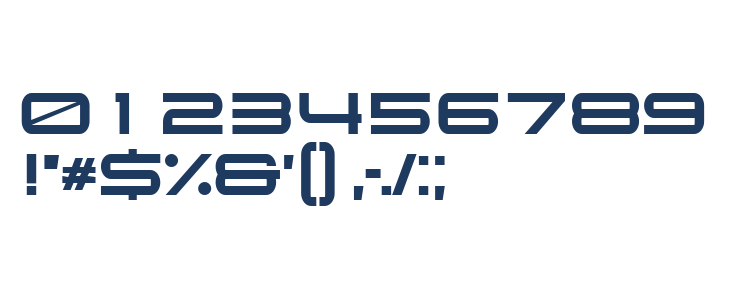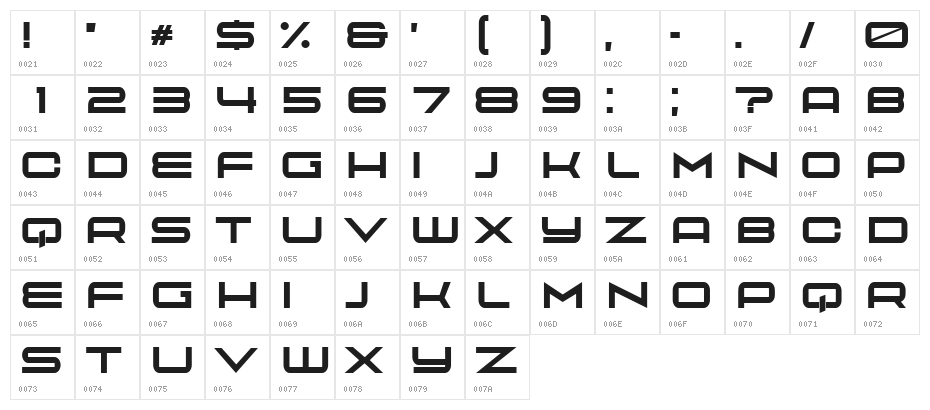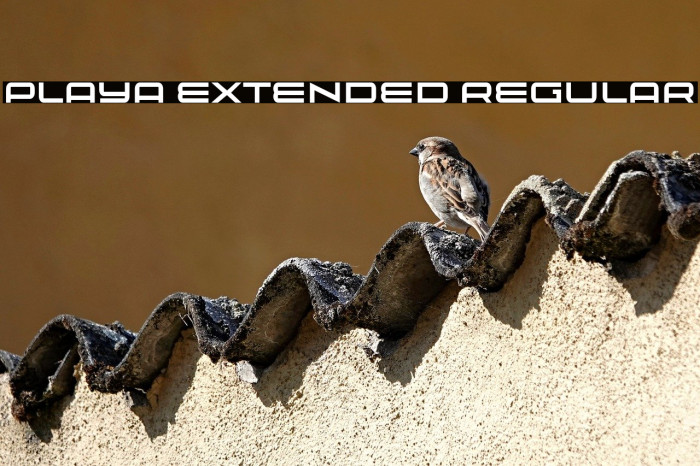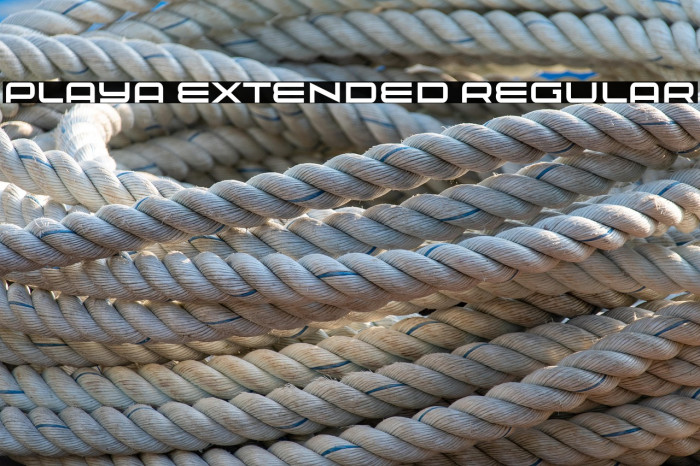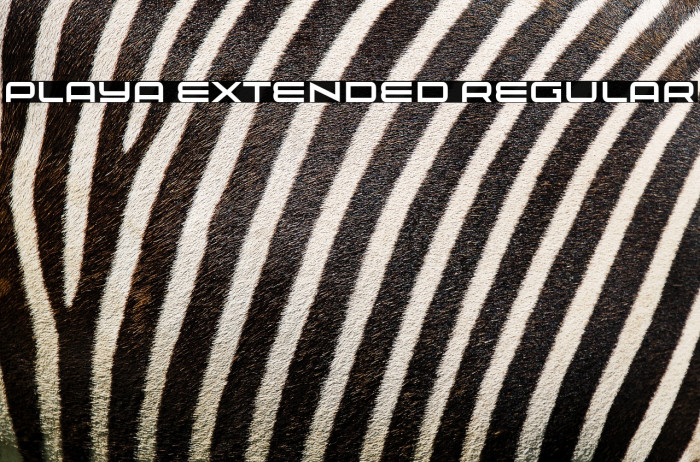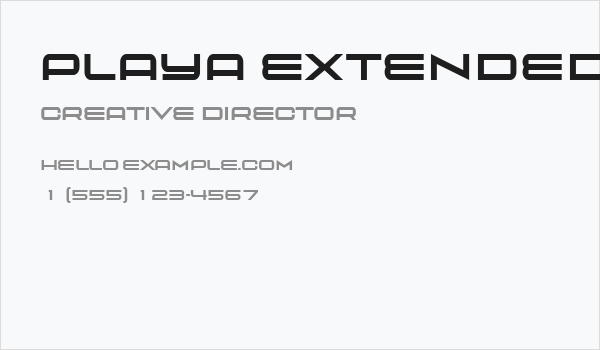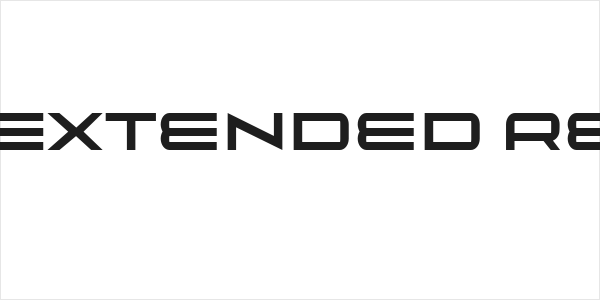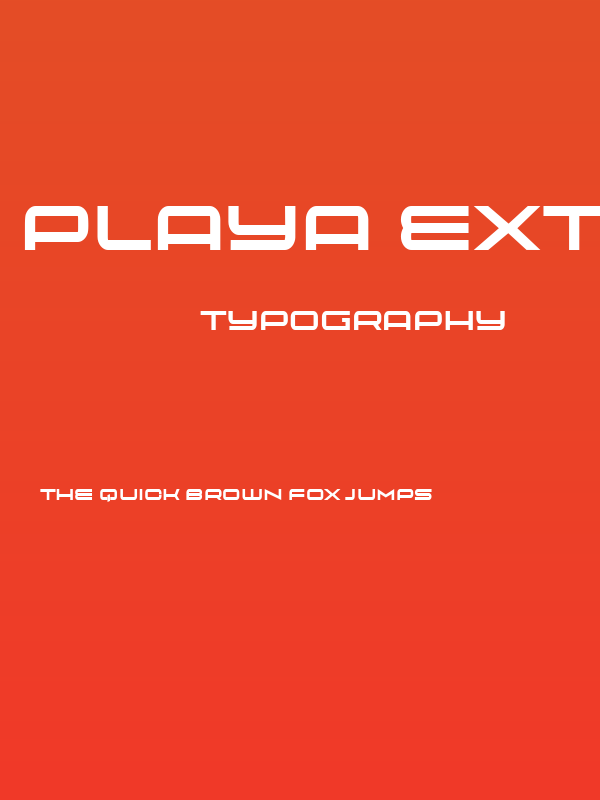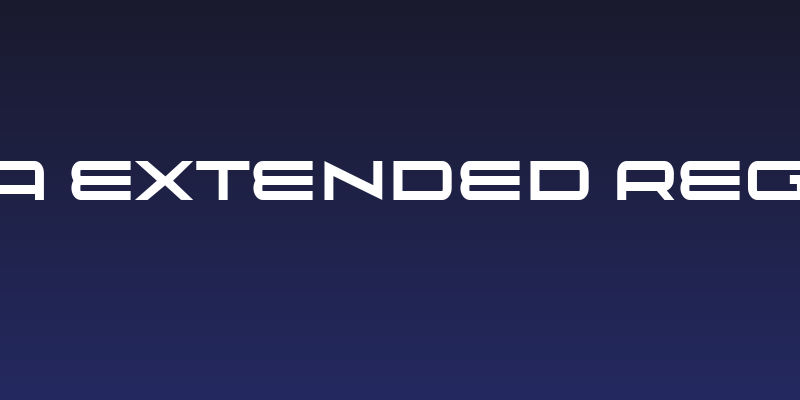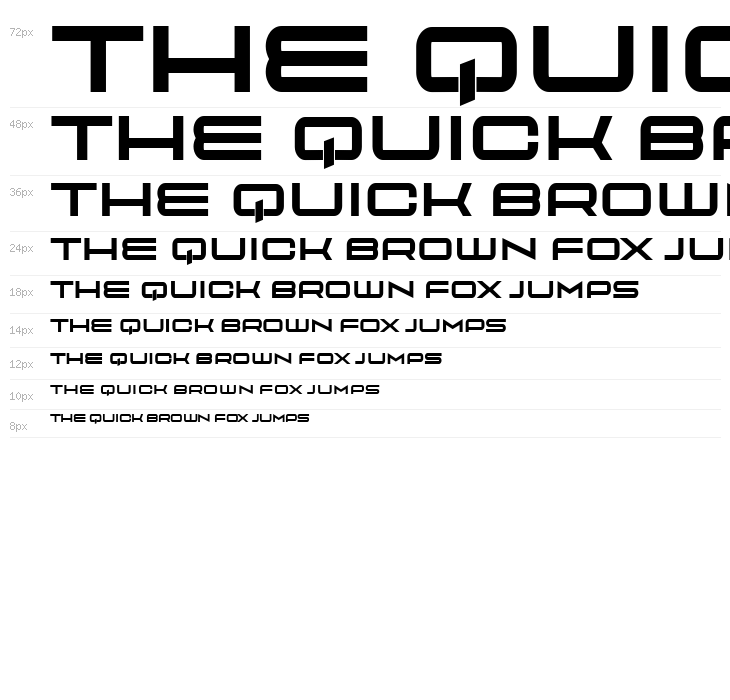
Playa Extended Regular Font
Playa Extended Regular Description
This font features a modern and futuristic design with clean, geometric lines and an extended width. The characters are bold and have a distinct, squared-off appearance, giving them a strong and impactful presence. The uppercase letters are uniform in height, while the lowercase letters maintain a consistent style. The numerals and special characters are designed to match the overall aesthetic, ensuring a cohesive look across all text. The font's style is suitable for projects that require a contemporary and tech-savvy feel.
| Proposed Projects | Ideal for technology branding, futuristic posters, video game interfaces, and modern web design. |